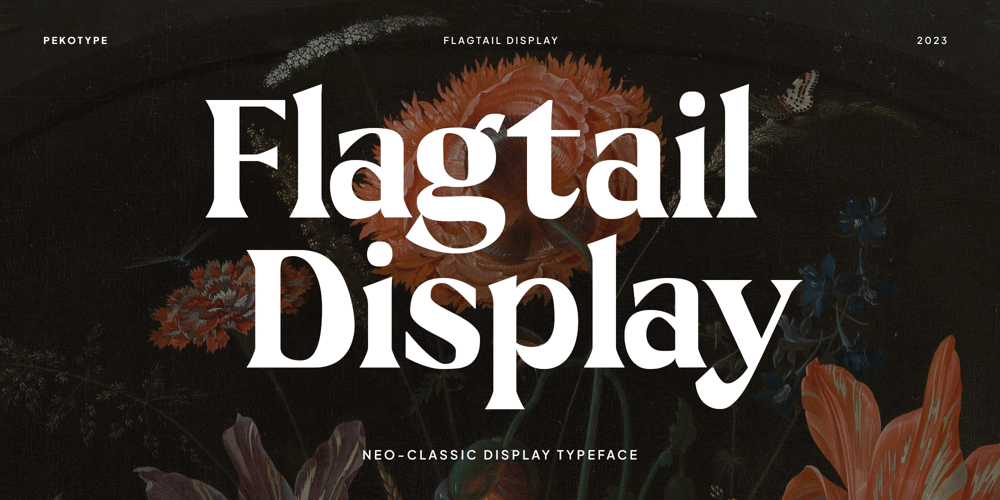
Flagtail Display Font Family was designed by Galang Bryan and published by Pekotype. Flagtail Display contains 1 styles and family package options. Flagtail Display combines the familiar feeling of classic typeface with the modernish touch to suit the nowadays trend. With its semi-bold and sharp type of shape, it can easily catch and engage the reader’s attention in an instant. The excellent readability of Flagtail Display will put any of the messages being delivered to be the limelight. This typeface suits for you who aim to catch attention through headlines, rebrand your products, and beyond.